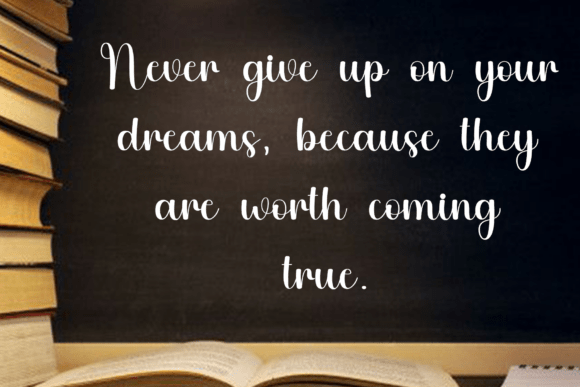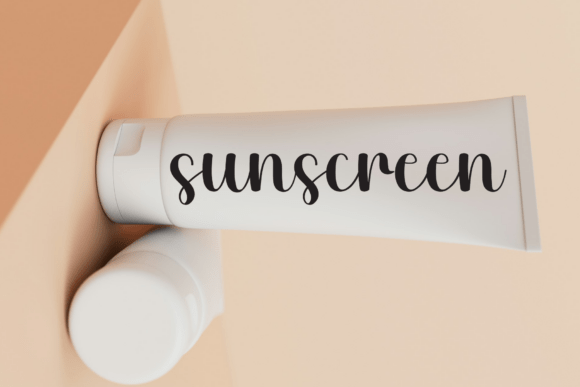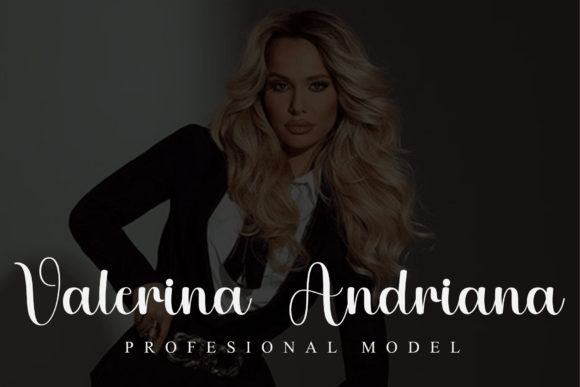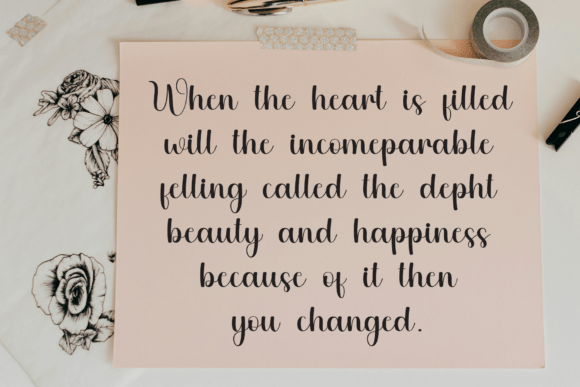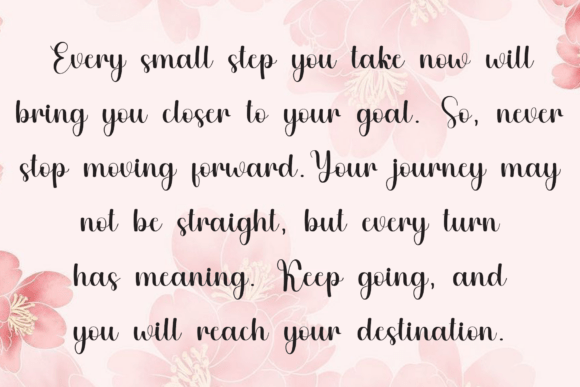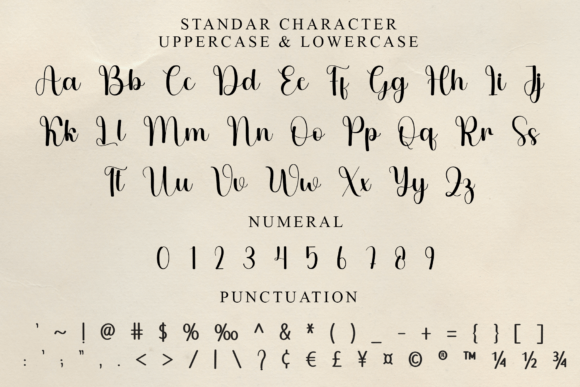
Discover the Delightful Font: Adding a Touch of Warmth and Friendliness to Your Designs
Are you tired of using the same old fonts for your personal projects, invitations, and social media graphics? Look no further than the Delightful Font, a casual and creative typeface that exudes warmth and friendliness. With its round, playful strokes, this font creates a relaxed and approachable feel that’s perfect for designers and crafters looking to add a personal touch to their work.
The Charm of Delightful Font
The Delightful Font boasts a charming, hand-drawn aesthetic that’s sure to add a fun and unique touch to any design. Its playful strokes and rounded edges create a sense of approachability, making it ideal for projects that require a personal and friendly feel. Whether you’re designing an invitation, a social media graphic, or a personal project, this font is sure to delight.
Key Features of Delightful Font
So, what makes the Delightful Font so special? Here are just a few of its key features:
- Casual and creative design: The Delightful Font has a unique, hand-drawn aesthetic that’s perfect for adding a personal touch to your designs.
- Warm and friendly feel: The font’s round, playful strokes create a relaxed and approachable feel that’s ideal for personal projects and social media graphics.
The Delightful Font is a versatile typeface that’s perfect for designers and crafters looking to add a personal touch to their work. Here are just a few ways you can use this font:
- Personal projects: Use the Delightful Font to add a personal touch to your personal projects, such as photo albums, scrapbooking, and more.
- Invitations: Create beautiful, one-of-a-kind invitations for special occasions, such as weddings, birthday parties, and baby showers.
- Social media graphics: Use the Delightful Font to create eye-catching social media graphics that are sure to delight your followers.
Tips for Using Delightful Font
Here are a few tips for getting the most out of the Delightful Font:
- Experiment with different sizes: The Delightful Font looks great in a variety of sizes, so don’t be afraid to experiment to find the perfect size for your project.
- Pair with other fonts: Try pairing the Delightful Font with other fonts to create a unique and eye-catching design.
- Use in combination with images: The Delightful Font looks great in combination with images, so try using it to add text to your favorite photos.